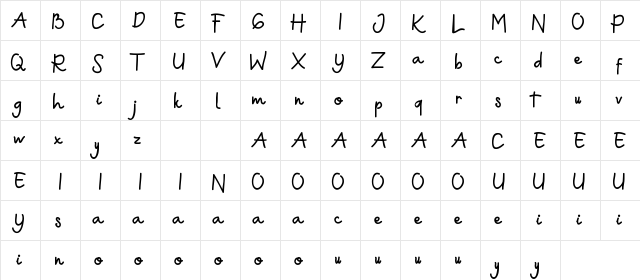
Green Aila Demo Regular
| Foundry | Edric Studio |
| Designer | Renata Insan C |
Design Context for Green Aila Demo Typeface
Green Aila Demo offers clean, dependable letterforms without strong stylistic allegiance, making it a practical choice for designers who need flexibility.